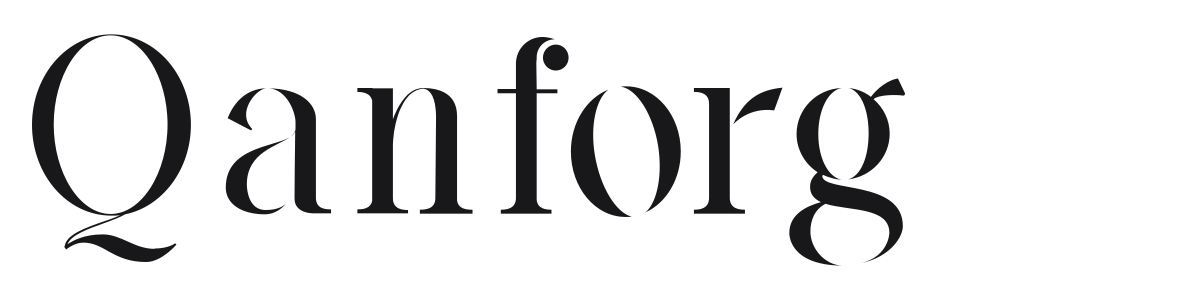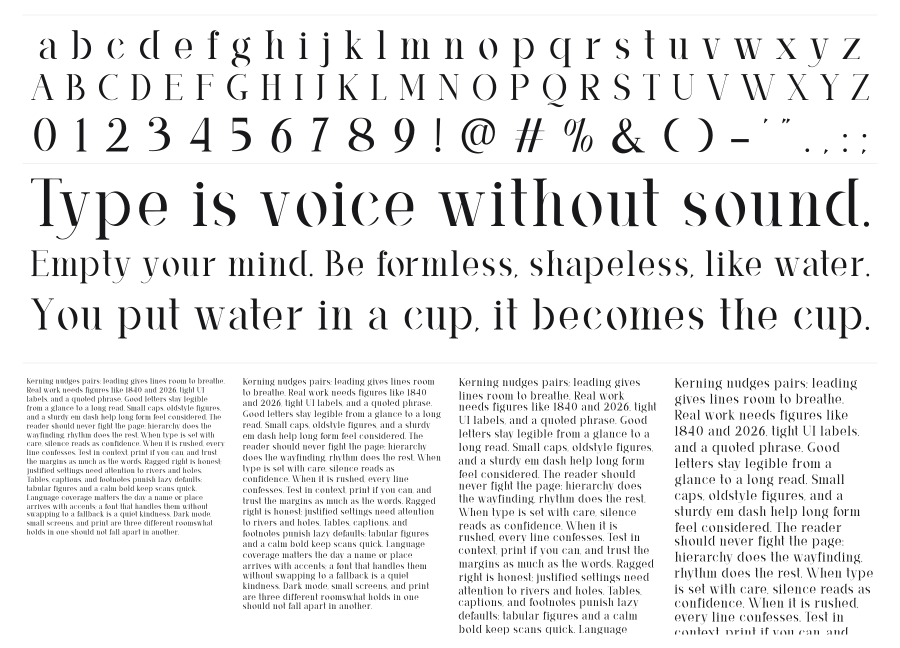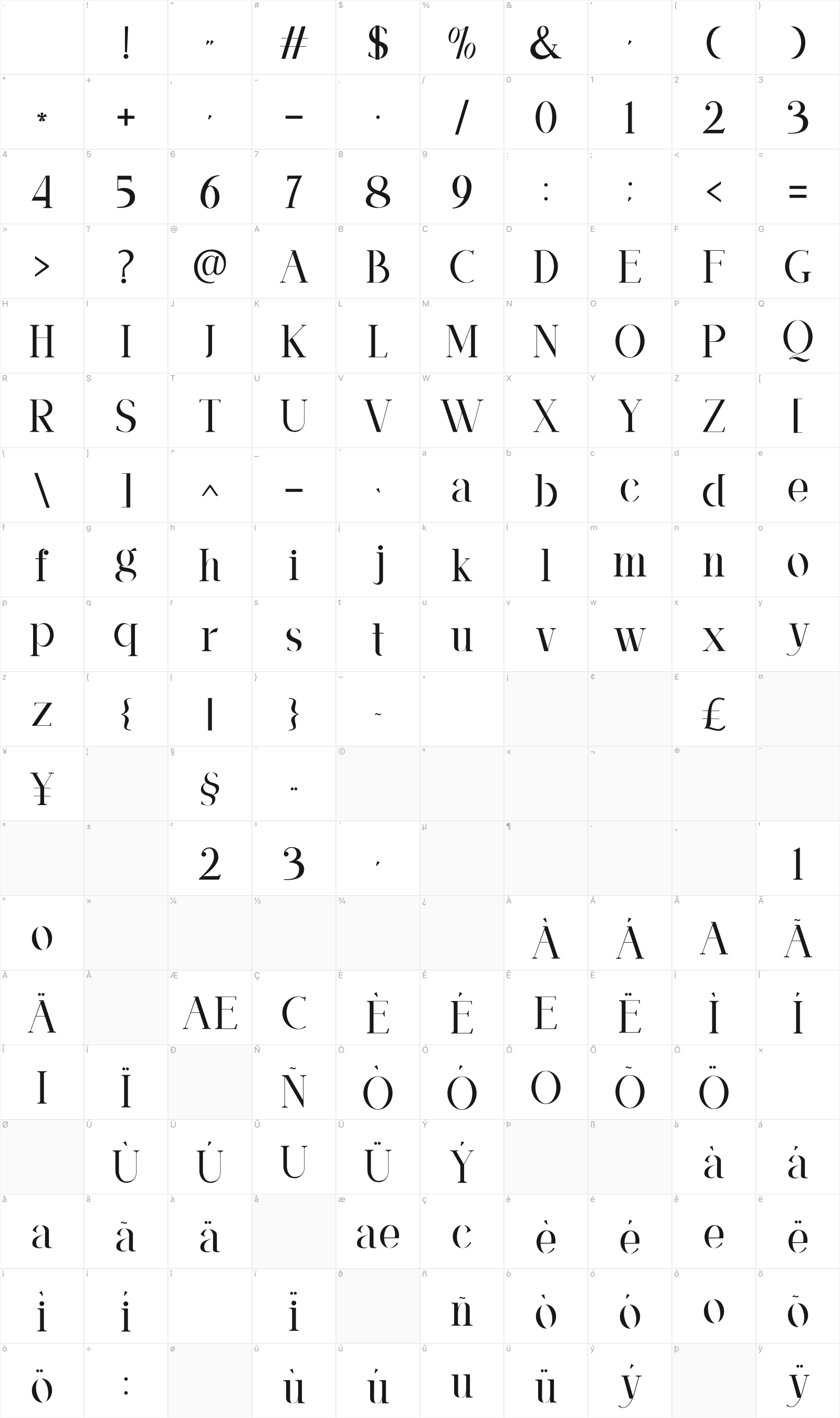
Qanforg
Qanforg is a modern display serif with the extreme stroke contrast of Didone tradition refined for contemporary editorial use. Razor-thin hairlines meet broad, confident stems, creating an airy elegance that reads as both classic and current. It carries the visual language of high-fashion magazines and luxury branding with ease.